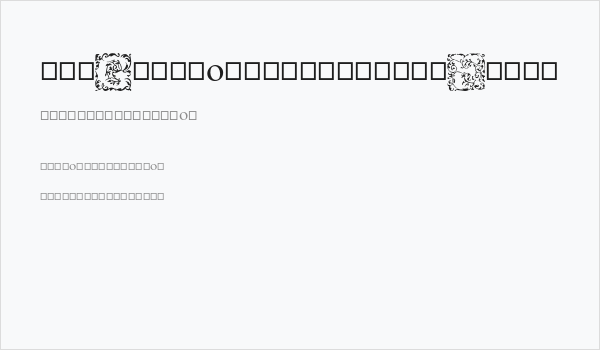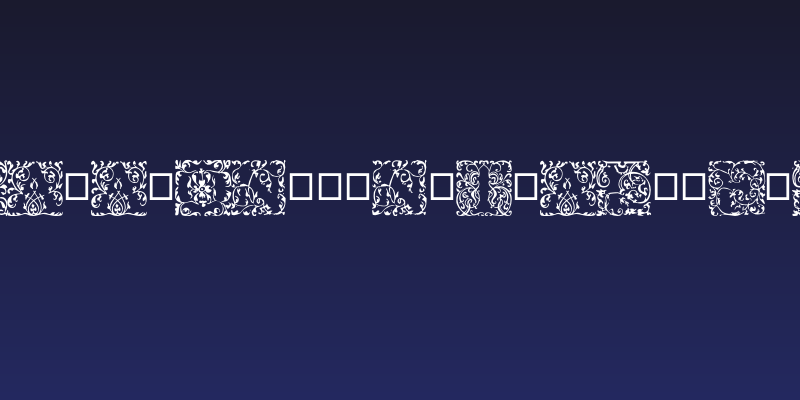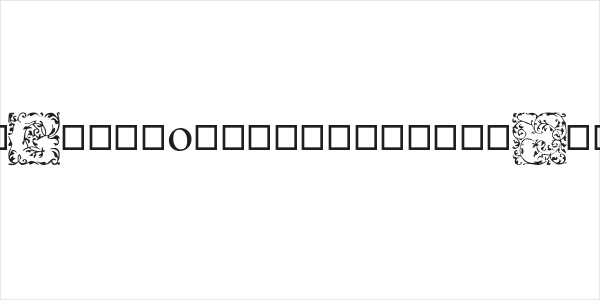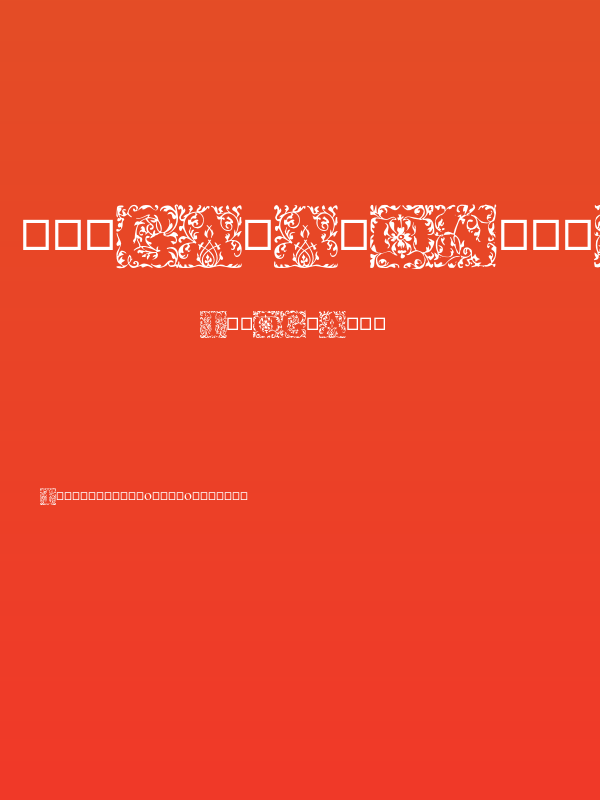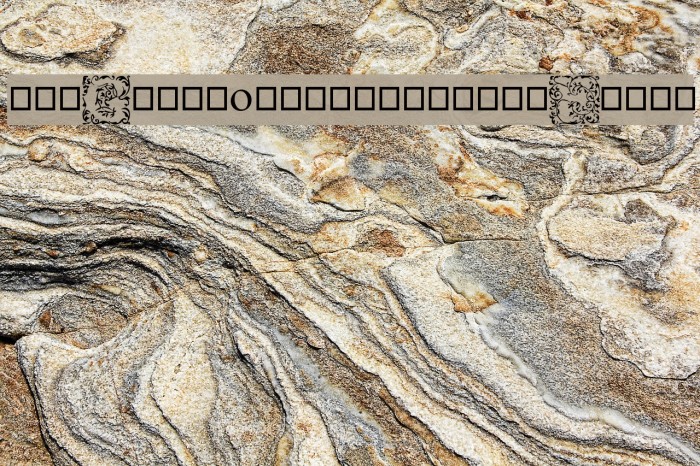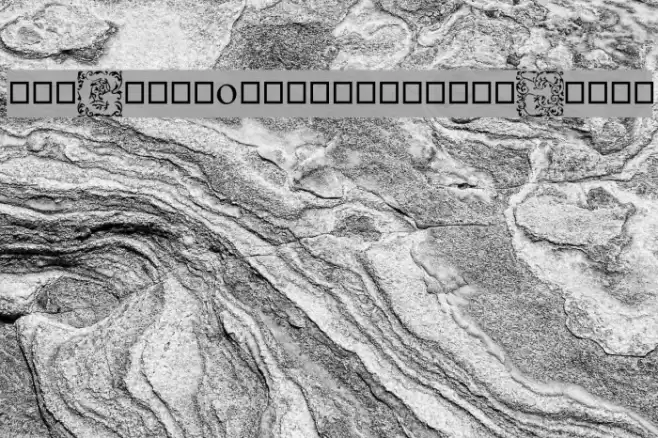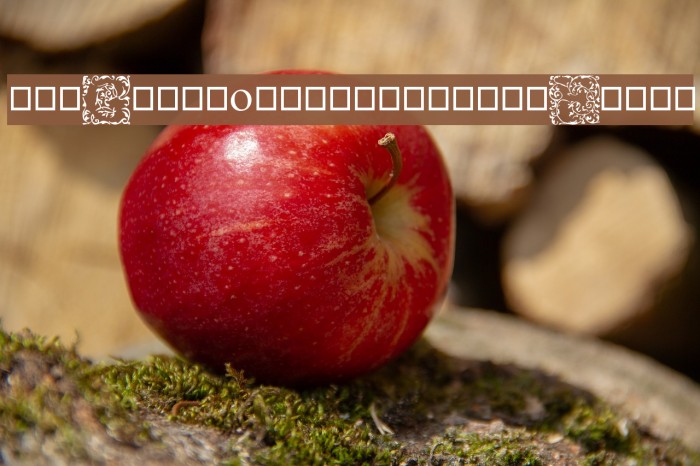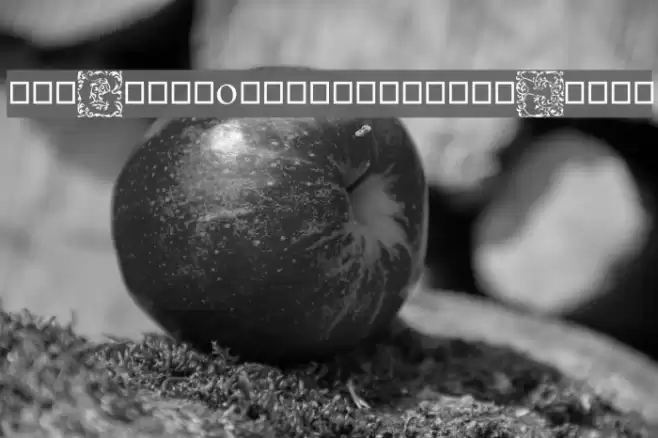
EB Garamond Initials Fill1 Font
EB Garamond Initials Fill1 Description
This font showcases an ornate and decorative style, characterized by intricate floral and vine-like embellishments surrounding each letter. The design is reminiscent of classic illuminated manuscripts, where each character is framed with elaborate patterns, giving it a regal and antique appearance. The letters are bold and stand out due to the heavy use of decorative elements, making them suitable for initial caps or decorative purposes. The overall aesthetic is both elegant and sophisticated, ideal for projects that require a touch of historical or vintage charm.
| Proposed Projects | Ideal for wedding invitations, historical documents, book covers, or any project seeking a vintage or classical touch. |